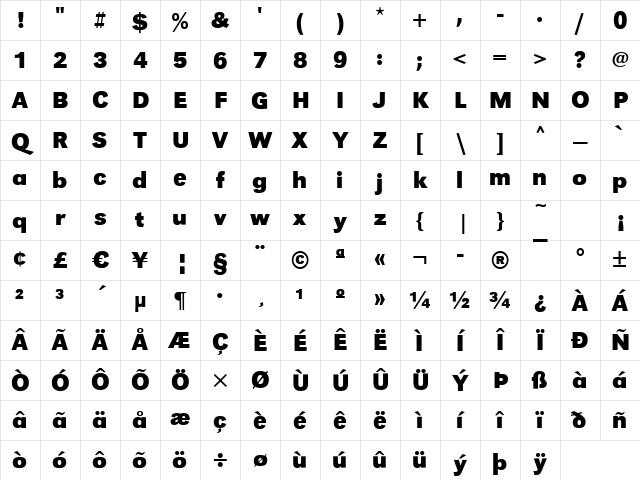
Grotesk-Bold Regular
Foundry: SoftMaker Software GmbH
Designer: SoftMaker Software GmbH
Design Context for Grotesk-Bold
Grotesk-Bold takes a clean, functional approach - its unadorned letterforms prioritise legibility and work reliably across screen and print environments. Its bold stroke weight gives it real presence on the page.
Well-suited to navigation labels, product packaging, and anywhere legibility at scale is essential.
Font Pairing: Use Grotesk-Bold for headlines alongside a lighter-weight sans or serif for body copy to establish clear visual hierarchy.
Pro Tip: Use Grotesk-Bold for UI labels, navigation, and short-form body copy where clean legibility is the priority.